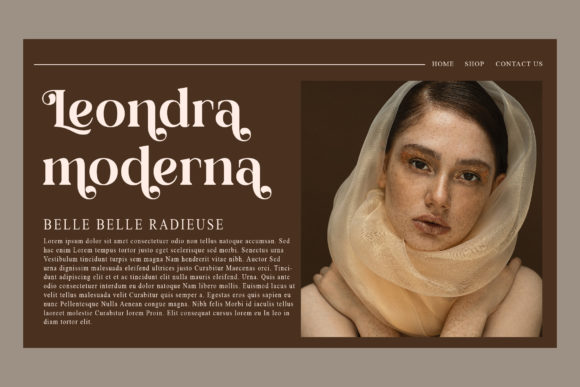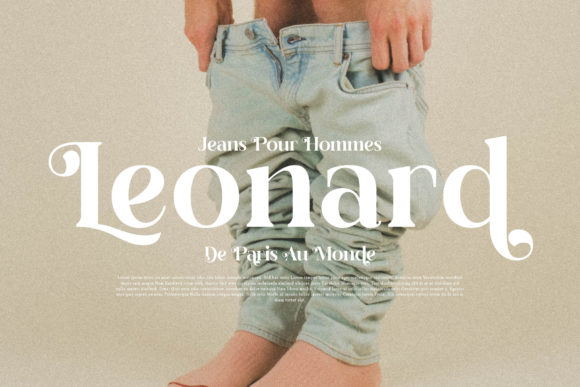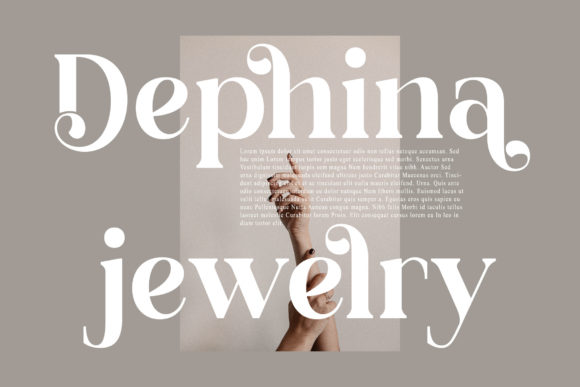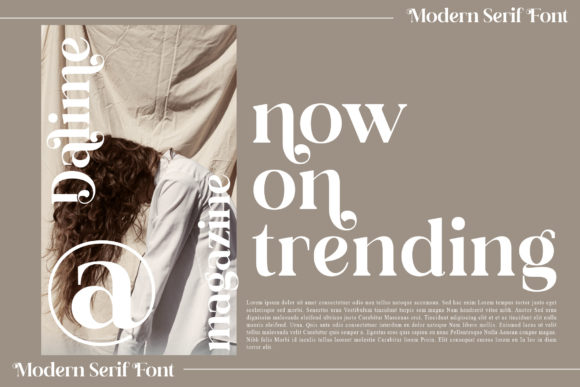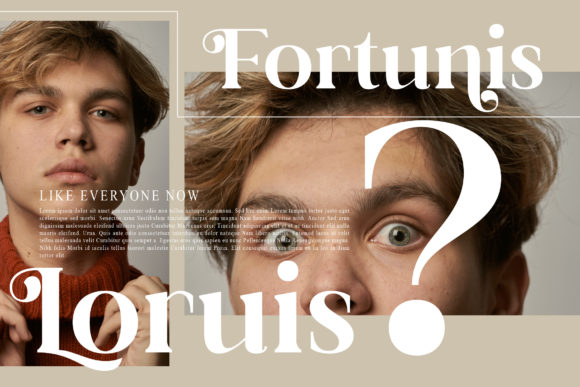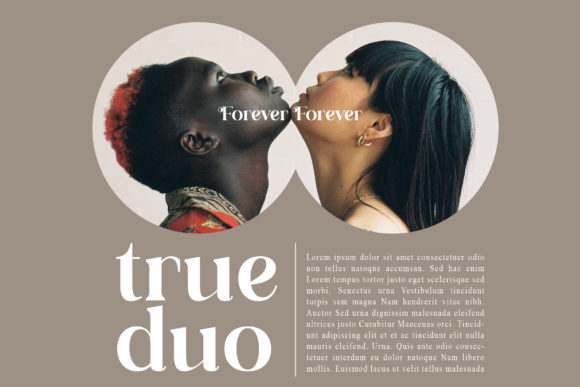
Introducing Dalime Font: Elevate Your Designs with Elegance and Sophistication
In the world of typography, fonts play a crucial role in conveying the tone and aesthetic of a design. For designers and crafters seeking to add a touch of elegance and sophistication to their projects, Dalime Font is an exceptional choice. This stunning serif font is not only visually appealing but also highly versatile, making it perfect for a wide range of design applications.
What Makes Dalime Font Stand Out?
Dalime Font is an elegant and stylish serif font that boasts a unique charm. Its classic design, coupled with modern flair, sets it apart from other fonts in its category. One of the key features that make Dalime Font so user-friendly and versatile is its PUA (Private Use Area) encoding. This means that users can easily access all the glyphs and swashes, allowing for greater creative freedom and flexibility in design.
The Benefits of PUA Encoding
PUA encoding is a significant advantage for designers. It enables them to access a wide range of characters, including glyphs and swashes, which can be used to add intricate details and personal touches to a design. This feature is particularly useful for crafters who want to create unique and customized products, such as handmade cards, invitations, and scrapbooking pages.
Dalime Font’s incredibly versatile style makes it suitable for various design projects. Whether you’re working on a luxury brand logo, a wedding invitation, or a fashion magazine, this font can help you achieve a sophisticated and high-end look. Its elegant serifs and flowing lines can add a touch of refinement to any design, making it perfect for:
- Fashion and beauty designs
- Signage and display ads
Why Designers and Crafters Love Dalime Font
Designers and crafters who have used Dalime Font rave about its exceptional quality and versatility. Here are a few reasons why:
- Ease of use: With PUA encoding, accessing glyphs and swashes is a breeze, making it easy to create stunning designs.
- Elegant design: Dalime Font’s classic serifs and modern flair make it perfect for designs that require a touch of sophistication.
- High-quality output: The font’s exceptional quality ensures that your designs look professional and polished.
Tips for Using Dalime Font
To get the most out of Dalime Font, here are a few tips:
- Experiment with different sizes: Dalime Font looks great in various sizes, from large headings to smaller body text.
- Play with glyphs and swashes: Use the PUA encoding to access a wide range of characters and add unique touches to your design.
- Pair it with other fonts: Dalime Font pairs well with other serif and sans-serif fonts, making it easy to create visually appealing combinations.
Dalime Font is an exceptional choice for designers and crafters seeking to add a touch of elegance and sophistication to their projects. Its PUA encoding, versatility, and elegant design make it perfect for a wide range of design applications. With Dalime Font, you can create spectacular designs that are sure to impress. So why wait? Fall in love with Dalime Font and take your designs to the next level!